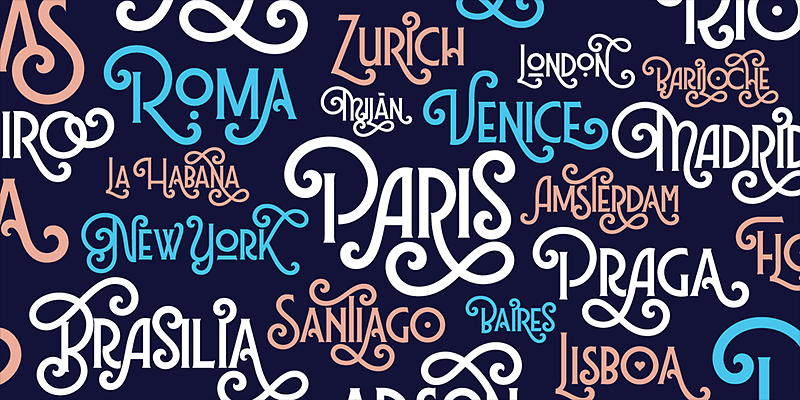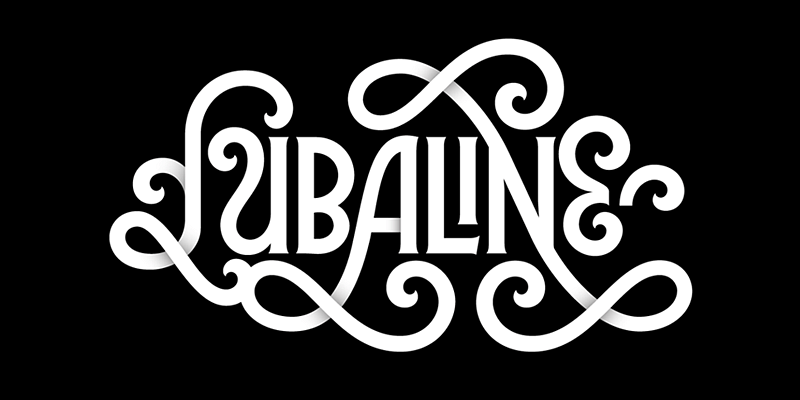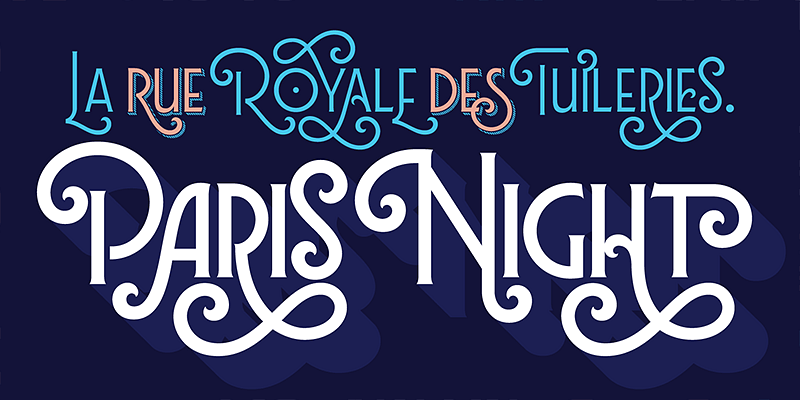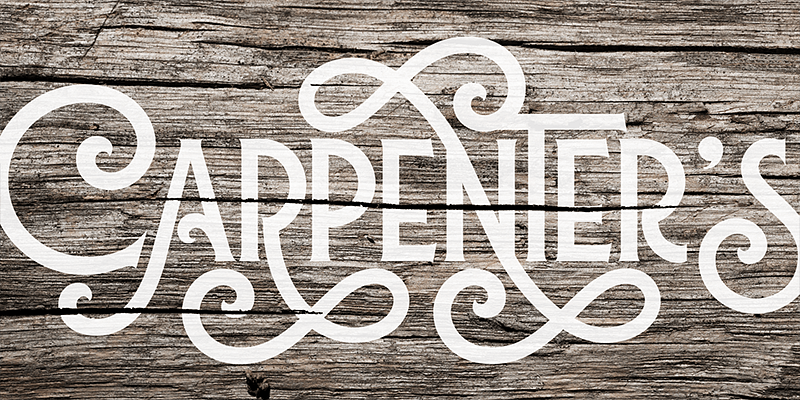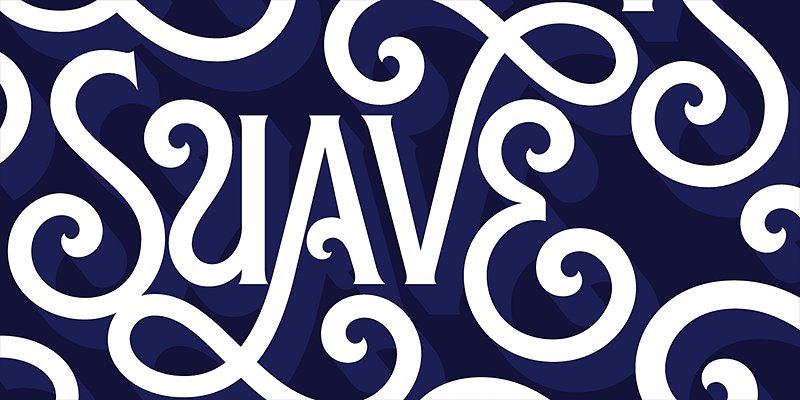
SPT Lubaline is a decorative multi-layered all-caps semi-serif typeface family with eclectic Art Deco style, further exaggerated with Shadow, Extras, and swashes aplenty. It is also Maximiliano Sproviero’s humble tribute to the work of Herb Lubalin, a typographic icon who smashed the taboos and sacred rules of type design. Lubaline is ready to perfect your exuberant design briefs, especially those related to branding, editorial, packaging, or anywhere you want to make an eye-grabbing statement.